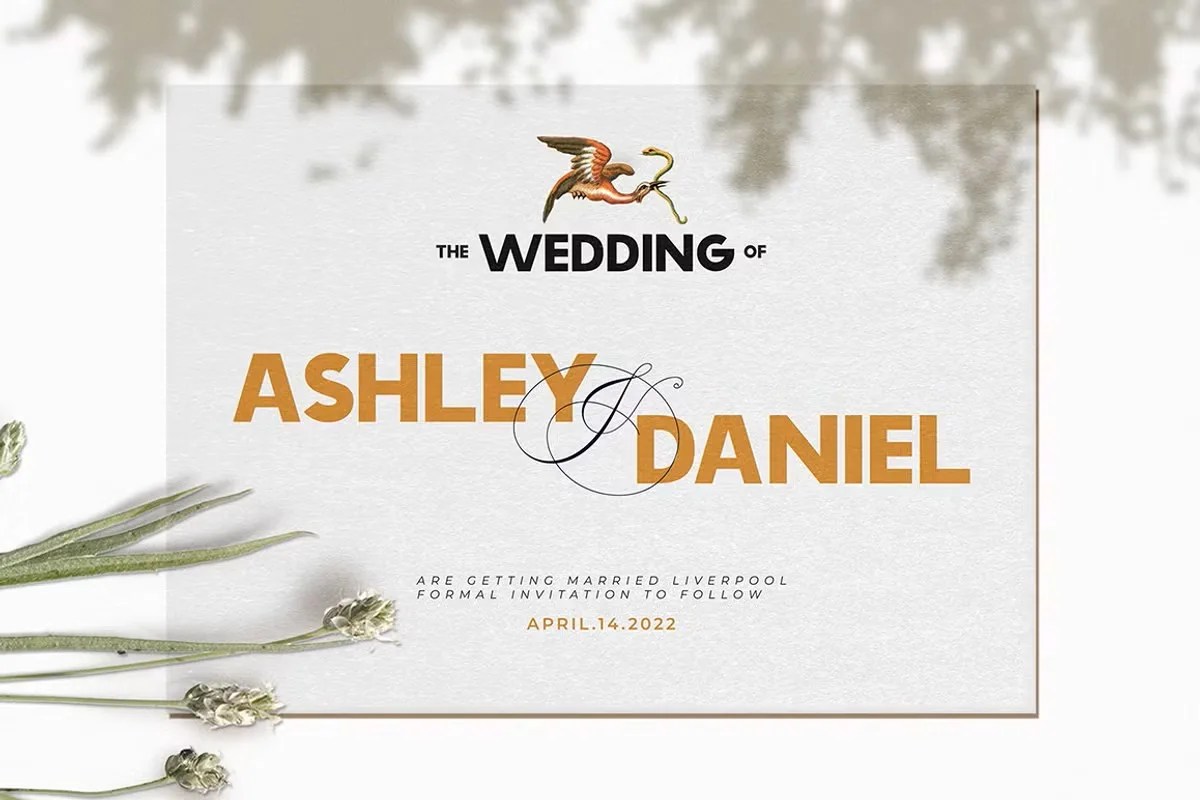
Desirable by Alcode, an enchanting script font that flows with effortless grace and elegance. Desirable features beautiful, smooth connections and natural letterforms that mimic the art of fine handwriting. This font is perfect for adding a personal, romantic, and sophisticated touch to your designs, making any text feel special and heartfelt.
Bring your wedding invitations to life, create a stunning signature-style logo, or design heartfelt social media graphics that connect with your audience. Its inherent beauty makes it an ideal choice for branding delicate products, crafting beautiful quote graphics, and adding a touch of class to certificates or personal stationery.
• Elegant and flowing script style
• Features smooth, natural connections
• Perfect for invitations, logos, and signatures
• Adds a romantic and personal touch
Desirable